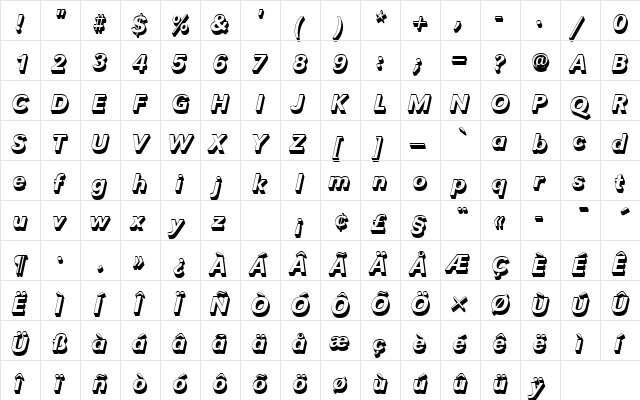
URWGroteskTMedItaSh1 Regular
Design Context for URWGroteskTMedItaSh1 Typeface
URWGroteskTMedItaSh1 takes a clean, functional approach — its unadorned letterforms prioritise legibility and work reliably across screen and print environments.